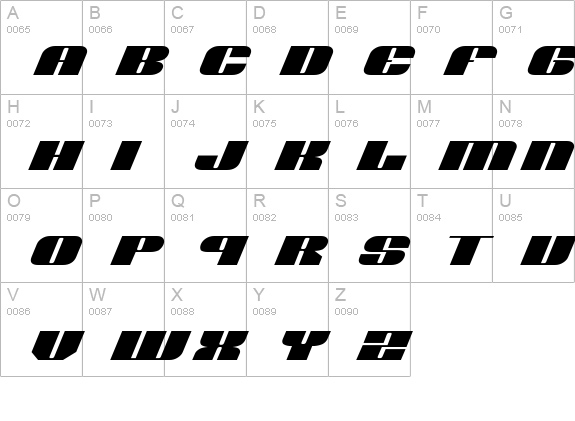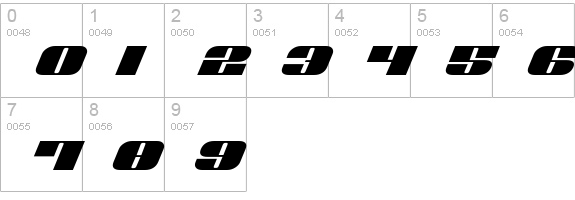
Nolo Contendere ExpItal font is a stylish and modern typeface that exudes sophistication and elegance. With its sleek design and elongated letterforms, this font is perfect for creating eye-catching headlines, titles, and branding materials. The unique italicized style adds a touch of flair and personality to any project. What makes Nolo Contendere ExpItal font even more appealing is that it is available for free download at FontsMarket.com. Whether you're a designer looking to add a touch of class to your creations or a business owner in need of a standout logo, this font is sure to impress. Don't miss out on the opportunity to elevate your design projects with this stunning typeface, available at no cost.